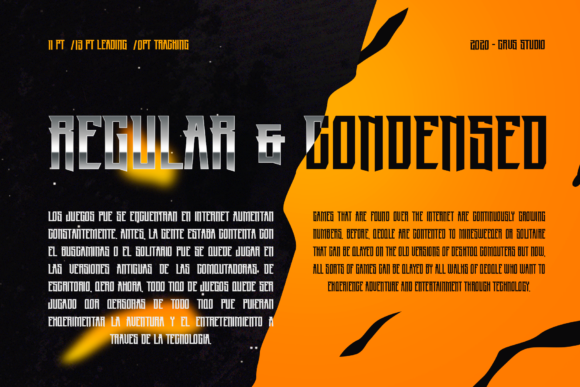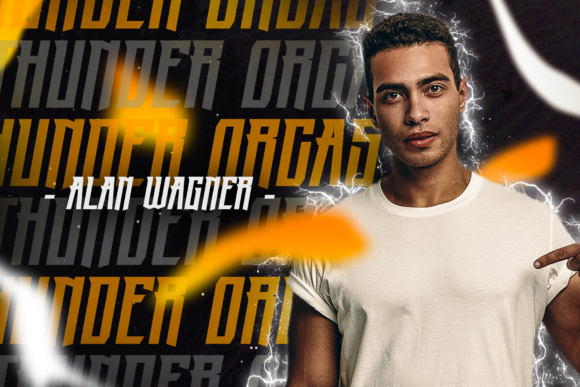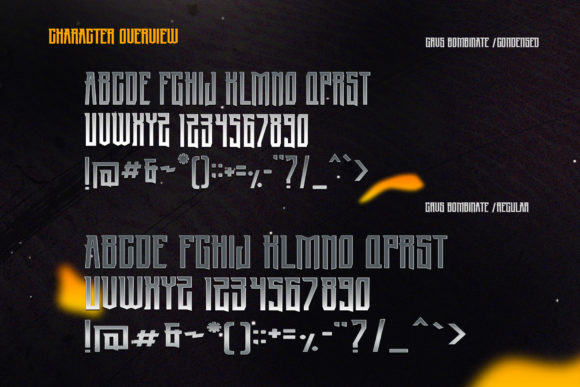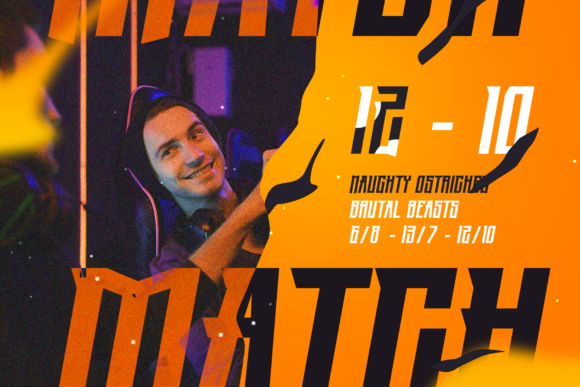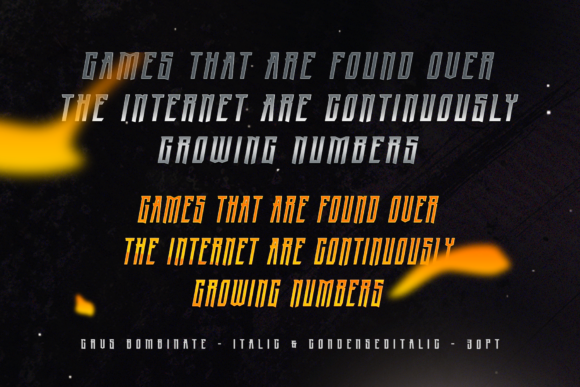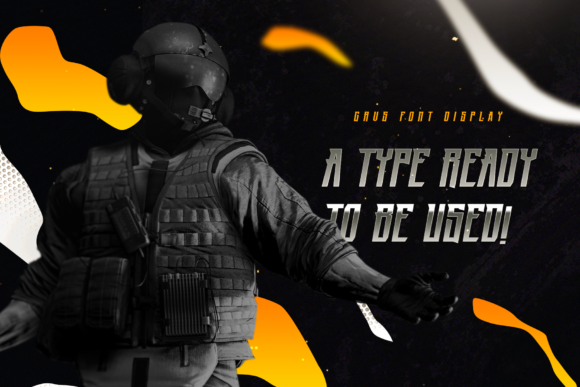
Bombinate Font: Make Your Designs Stand Out with this Bold and Imposing Display Font
Are you looking for a font that can add a touch of vintage style and boldness to your designs? Look no further than Bombinate Font. This display font is perfect for designers and crafters who want to make their work stand out from the crowd. With its thick lettering and vintage vibe, Bombinate Font is sure to make a statement.
What is Bombinate Font?
Bombinate Font is a bold and imposing display font that is perfect for headlines, titles, and other design elements where you want to make a big impact. Its thick lettering and vintage style give it a unique look that is sure to grab attention. Whether you’re working on a logo, brochure, or website, Bombinate Font is a great choice.
Key Features of Bombinate Font
- Bold and Imposing: Bombinate Font is a bold and imposing font that is perfect for making a statement.
- Vintage Style: The font has a vintage vibe that gives it a unique and classic look.
- Thick Lettering: The thick lettering of Bombinate Font makes it perfect for headlines and titles.
- Display Font: Bombinate Font is a display font, making it perfect for use in designs where you want to make a big impact.
How to Use Bombinate Font
Bombinate Font is a versatile font that can be used in a variety of design projects. Here are a few ideas for how to use it:
- Logos: Use Bombinate Font to create a bold and memorable logo for your business or brand.
- Headlines: Use Bombinate Font to create eye-catching headlines for your website, blog, or marketing materials.
- Posters: Use Bombinate Font to create bold and attention-grabbing posters for events, promotions, or products.
- Social Media Graphics: Use Bombinate Font to create social media graphics that stand out from the crowd.
Benefits of Using Bombinate Font
There are many benefits to using Bombinate Font in your designs. Here are a few:
- Grabs Attention: The bold and imposing nature of Bombinate Font makes it perfect for grabbing attention.
- Unique Look: The vintage style of Bombinate Font gives it a unique look that will set your designs apart.
- Versatile: Bombinate Font is a versatile font that can be used in a variety of design projects.
- Easy to Read: Despite its bold nature, Bombinate Font is easy to read, making it perfect for use in headlines and titles.
Tips for Using Bombinate Font
Here are a few tips for using Bombinate Font effectively:
- Use it Sparingly: Because Bombinate Font is so bold, it’s best to use it sparingly. Use it for headlines and titles, but not for body text.
- Pair it with a Simple Font: Pair Bombinate Font with a simple font to create contrast and make your designs more visually appealing.
- Experiment with Colors: Experiment with different colors to find the one that works best with Bombinate Font.
Bombinate Font is a bold and imposing display font that is perfect for designers and crafters who want to make their work stand out. With its thick lettering and vintage vibe, Bombinate Font is sure to make a statement. Whether you’re working on a logo, brochure, or website, Bombinate Font is a great choice. So why not give it a try and see how it can elevate your designs?